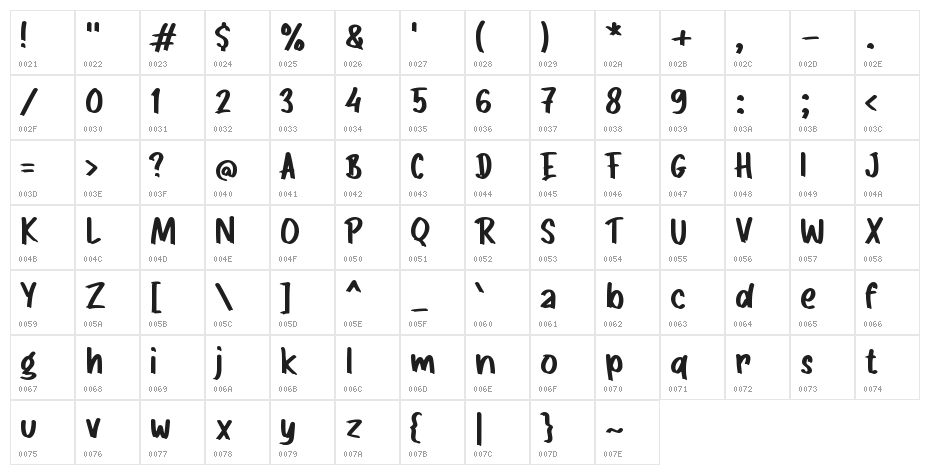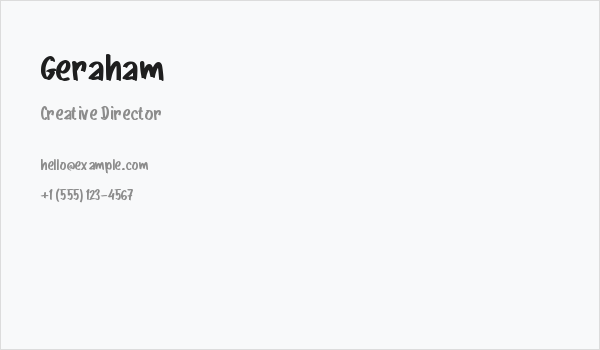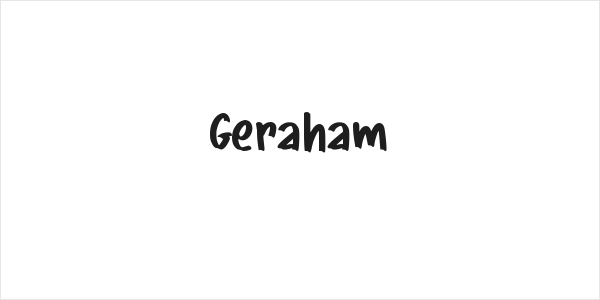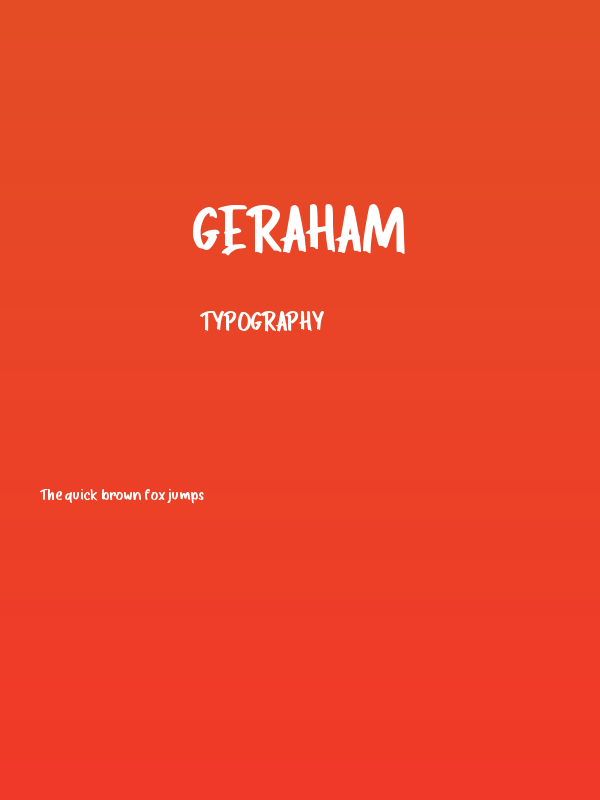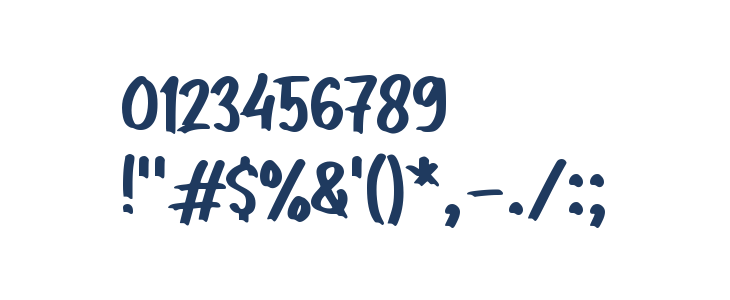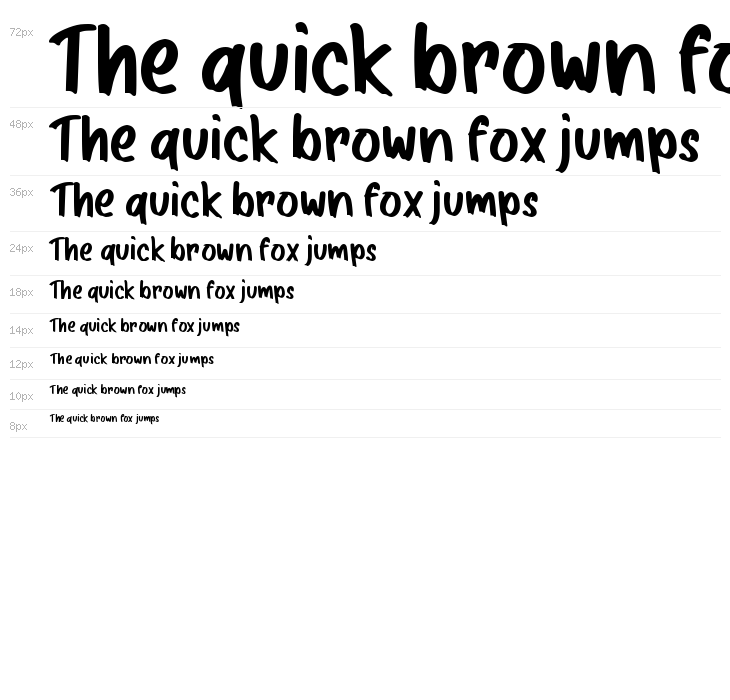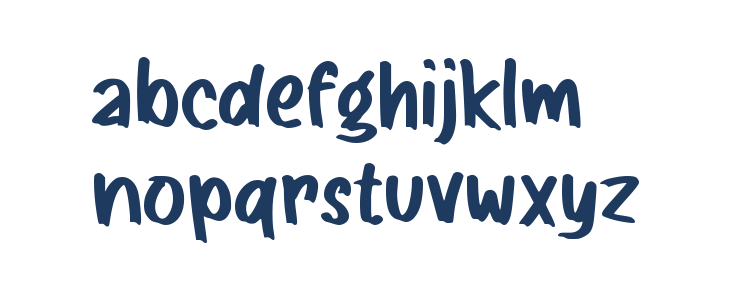
Geraham Font
Geraham Description
This font features a bold and playful handwritten style, characterized by its thick strokes and slightly irregular letterforms. The uppercase and lowercase letters maintain a consistent flow, giving it a casual yet energetic appearance. The numbers and special characters complement the alphabet with the same lively and dynamic feel. Its boldness makes it stand out, while the handwritten aspect adds a personal touch, making it suitable for creative and informal designs.
GERAHAM UPPERCASE
GERAHAM LOWERCASE
GERAHAM OTHER CHARS
| Overall Style | Playful, Casual |
| Proposed Projects | Ideal for greeting cards, children's books, playful branding, and social media graphics. |